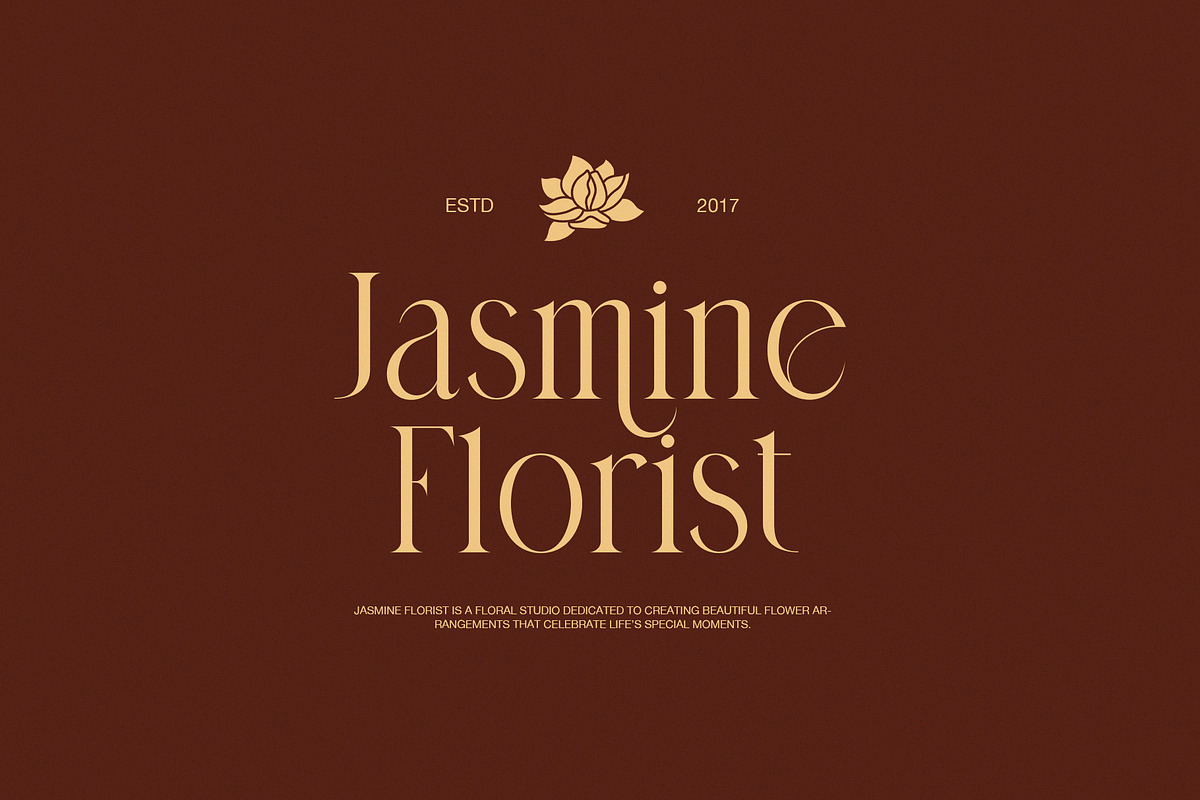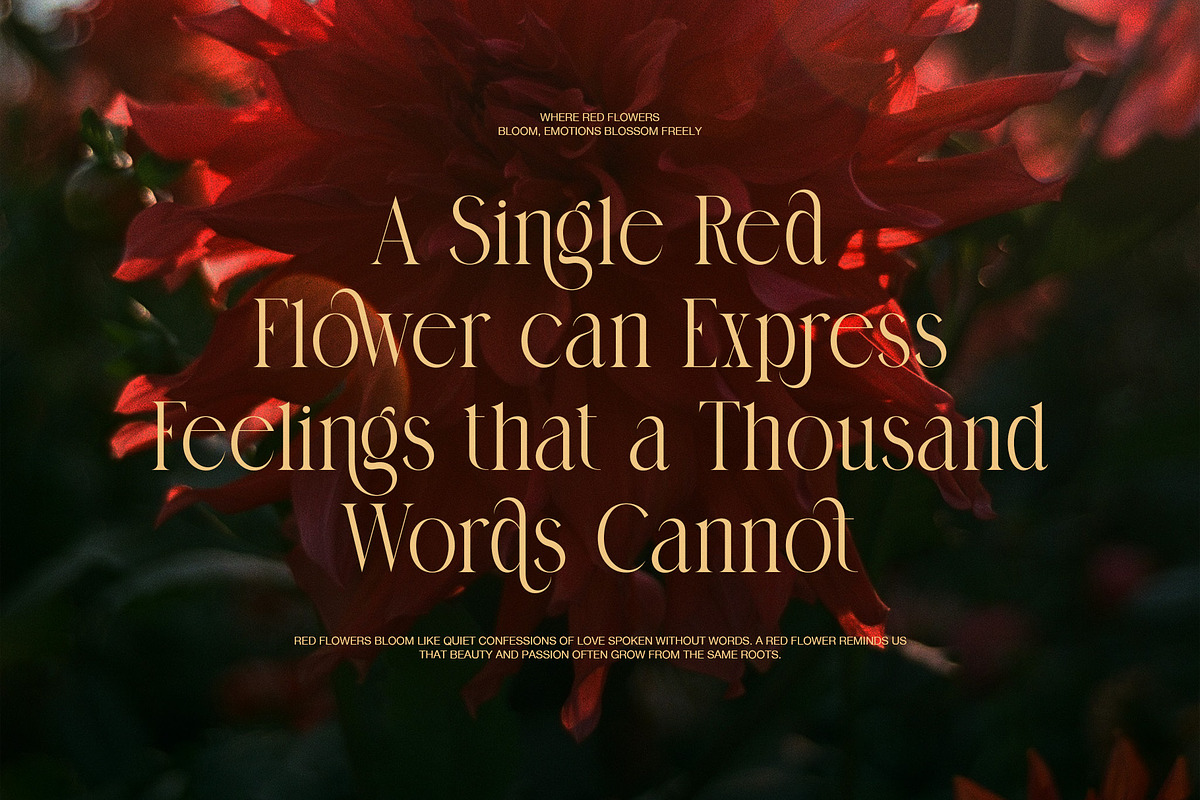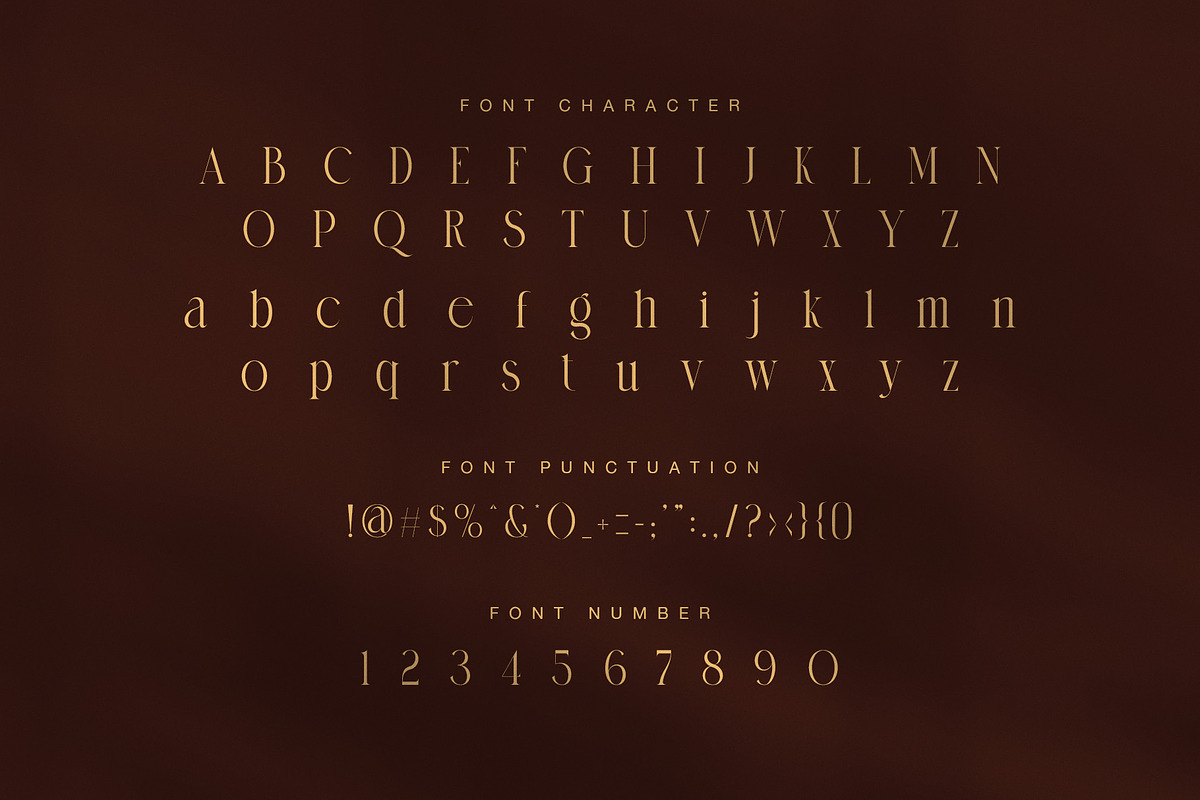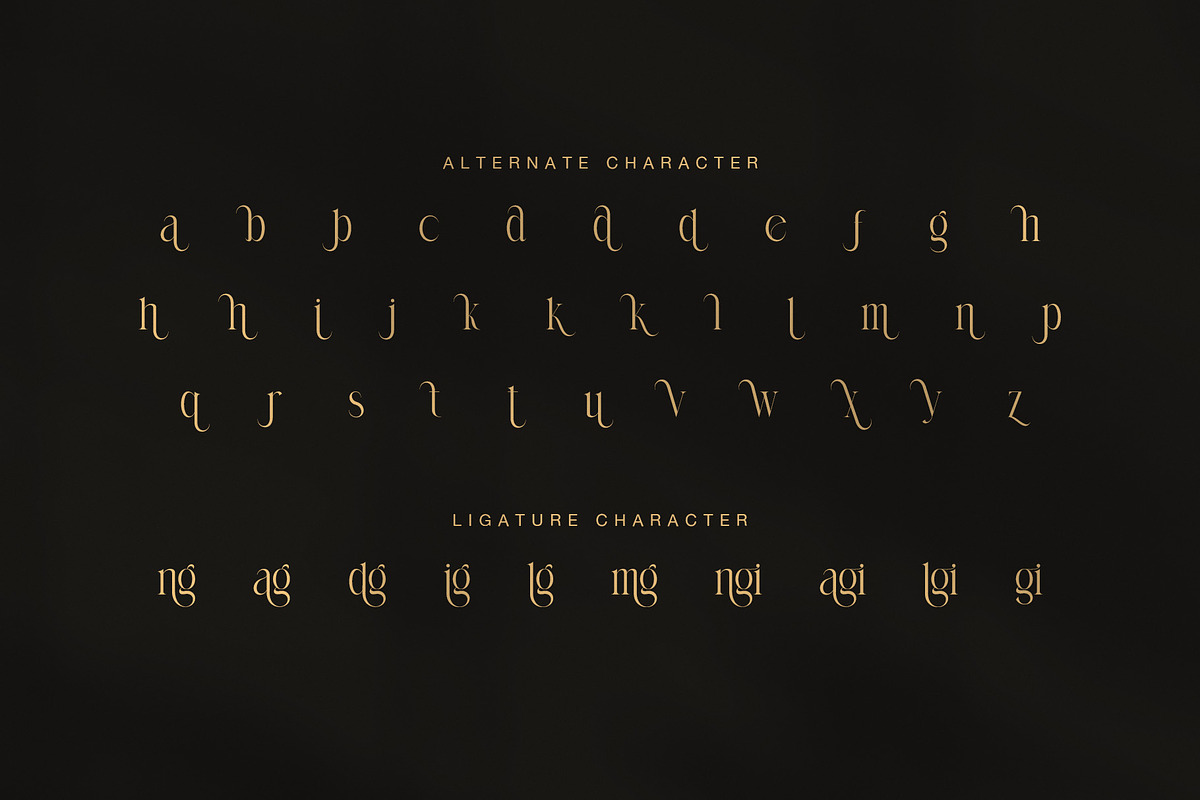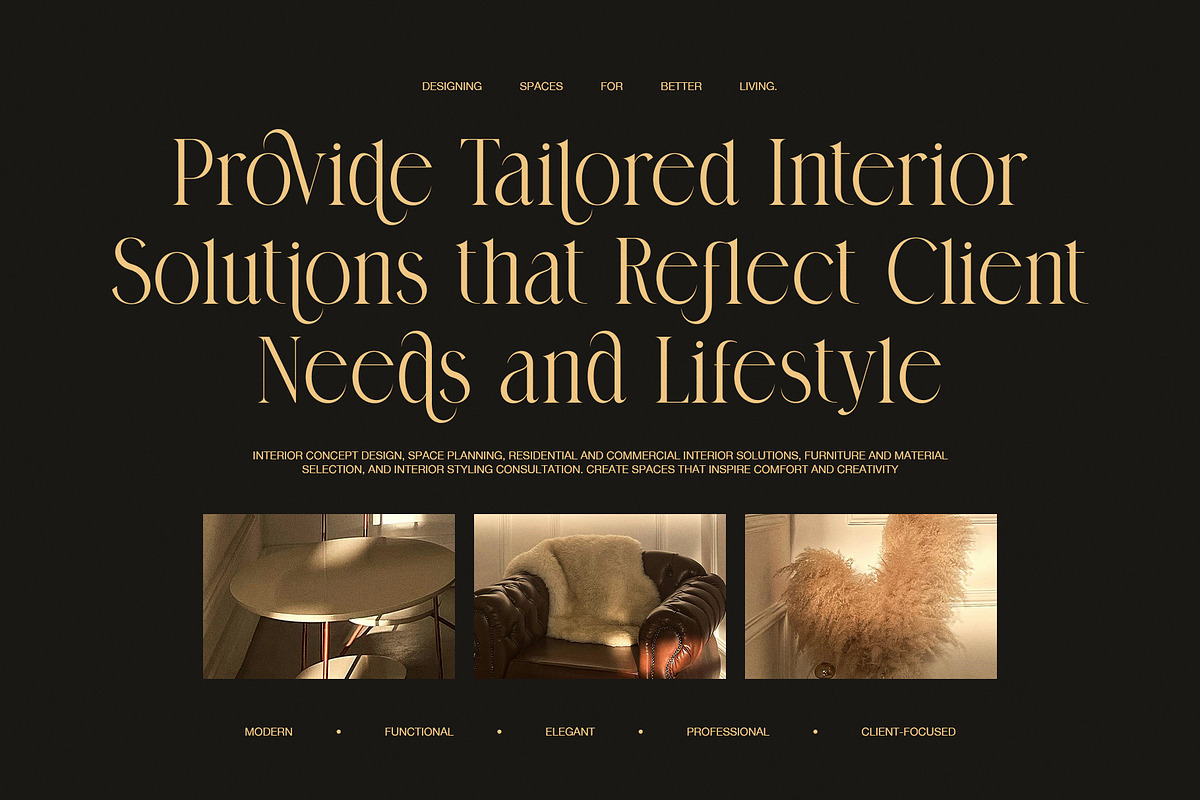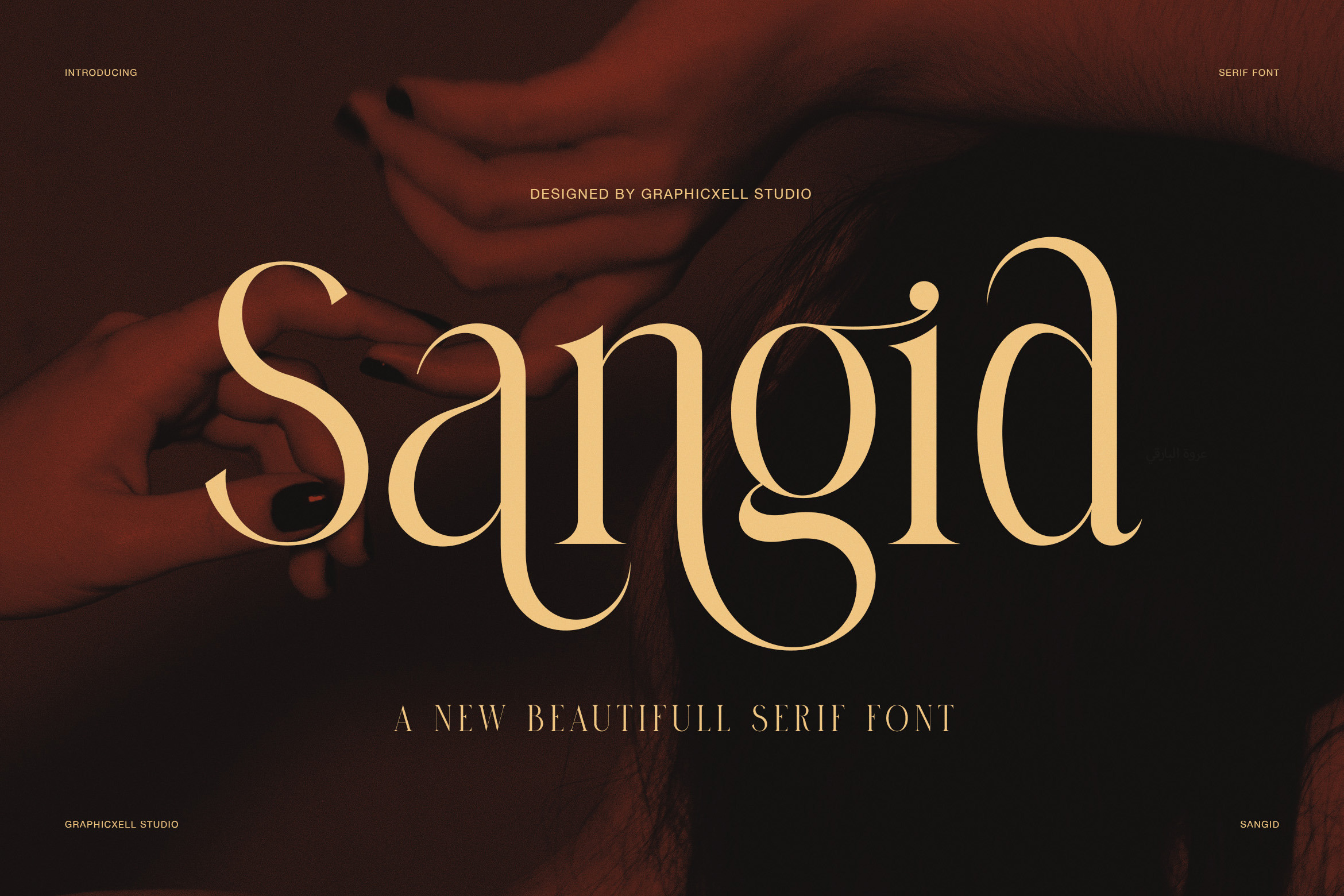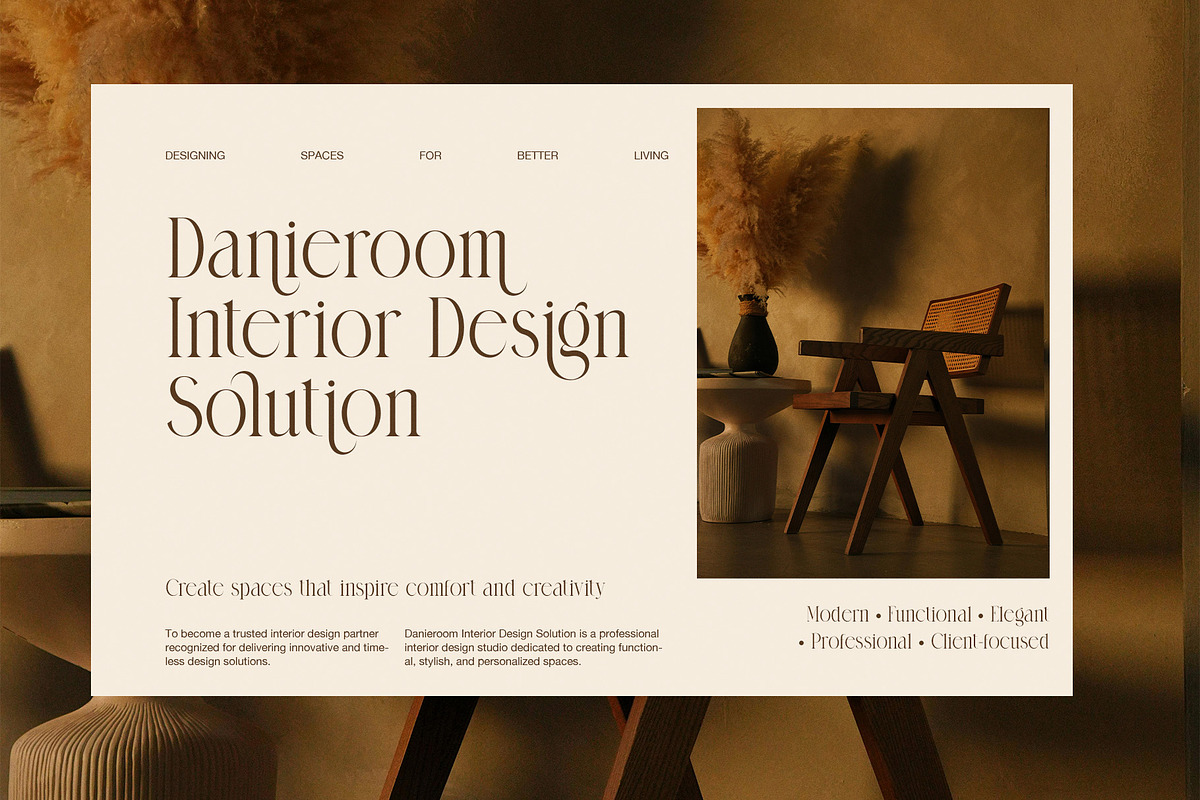
Sangid Elegant Serif Font
Sangid Elegant Serif Font is a graceful display serif with a rich and artistic feel. It blends classic beauty with a modern fashion mood, so it looks refined, stylish, and full of charm. At first glance, the font feels luxurious. However, its real strength comes from the details. The letterforms are slim, soft, and balanced, while the curved terminals add a gentle and expressive touch.
This font has a strong visual character. The strokes are clean, yet the shapes feel warm and fluid. In addition, several letters show elegant turns that make each word look more alive. Because of that, Sangid is perfect for designers who want text to feel both premium and emotional. It is stylish, but it still stays neat and easy to enjoy in short display text.
Sangid also includes beautiful alternate characters and ligatures. These features help create a more custom and polished look. As a result, logos, brand names, and headlines feel more special. The alternate forms add movement, while the ligatures make text flow in a smooth and natural way. Therefore, this font is a lovely choice for high-end visual work.
From the preview, Sangid works beautifully for fashion branding, floral designs, beauty products, interior projects, boutique packaging, and editorial layouts. It also fits business cards, invitations, social media content, product tags, and luxury brand presentations. Moreover, the warm and dramatic mood makes it a strong choice for branding that wants to feel romantic, chic, and memorable.
Main Features
- Elegant serif with a modern luxury style
- Slim and graceful letterforms
- Beautiful alternate characters
- Smooth ligatures for refined text flow
- Ideal for logos, branding, and headlines
- Great for fashion, floral, beauty, and interior themes
Why Designers Love It
Sangid gives every design a more artistic voice. Even so, it does not feel heavy or hard to use. The clean structure keeps it usable, while the curved details bring a stylish personality. For that reason, it is a strong font for many creative projects.
If you need a serif font that feels elegant, romantic, and premium, Sangid Elegant Serif Font is a beautiful option. It helps your design look polished, expressive, and timeless. So, whether you design for fashion, flowers, interiors, or luxury packaging, this font can leave a lasting impression.